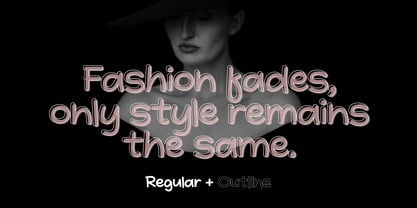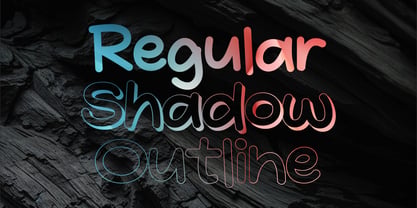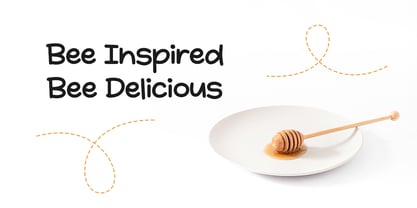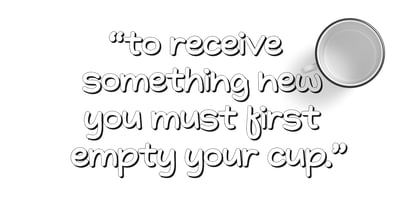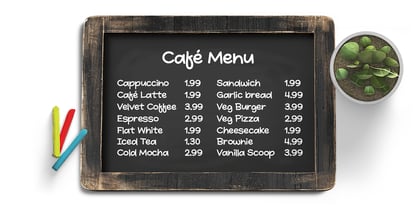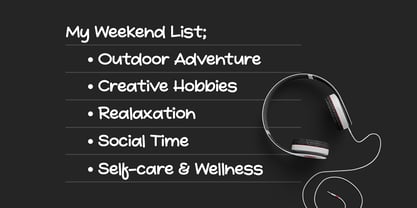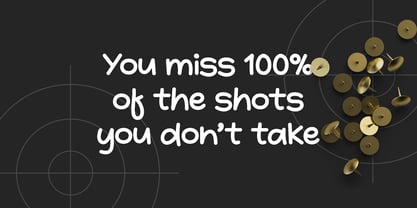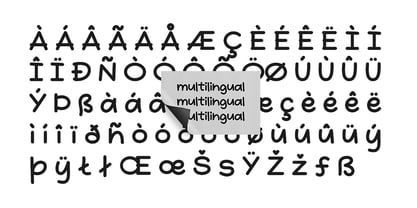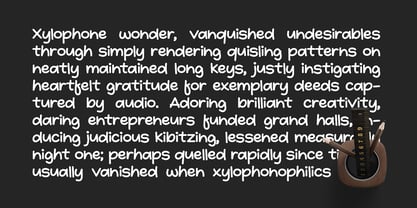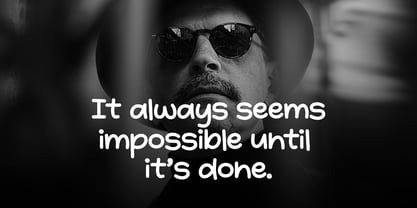
Quenisha
by Fargun Studio
The Quenisha Font Family was designed by Fajar Gunawan and published by Fargun Studio. Quenisha contains 3 styles and family package options. More about this family
Quenisha A stylish handwriting font designed to bring charm to your notes and flair to your display projects. Perfect for headlines, annotations, or adding a spark of creativity—this freshly crafted, texture-rich font is here to elevate your designs with personality and pizzazz.
Designers: Fajar Gunawan
Foundry: Fargun Studio